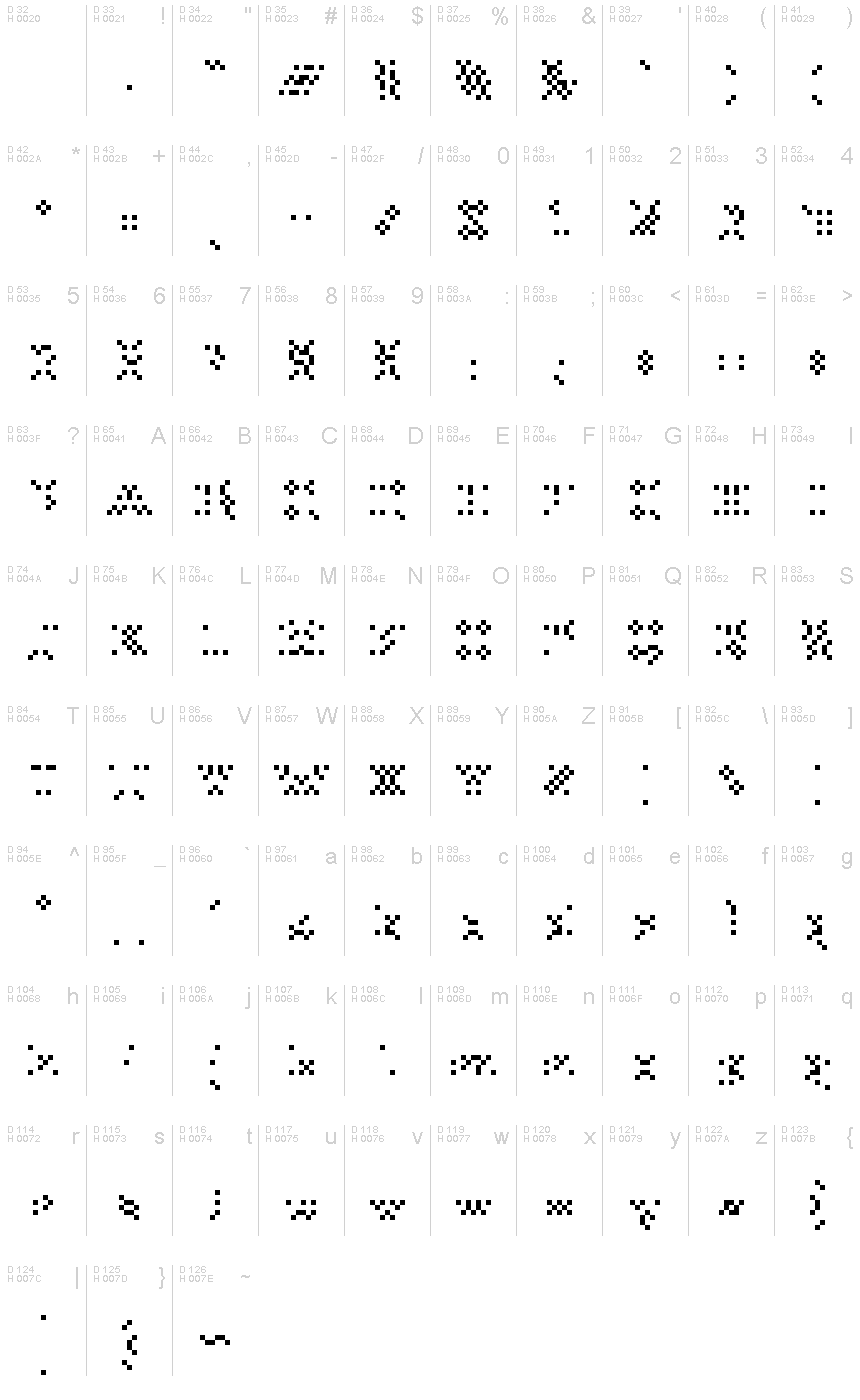
TourDeForceAlias
A font specifically made for use in Adventure Game Studios. Best viewed at 12 pixel size. Alias font is to be layered over the base font.